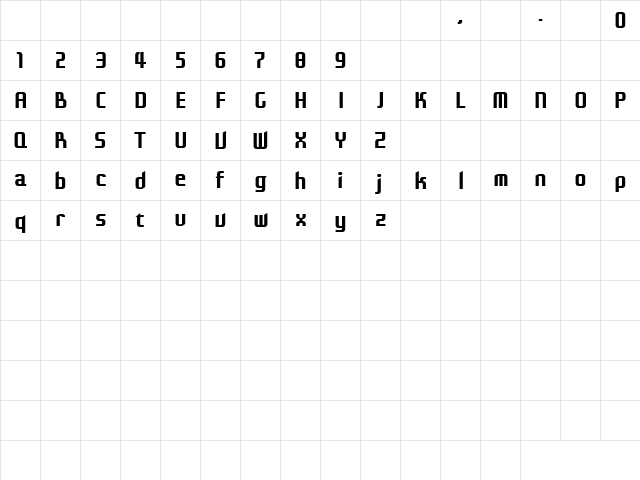
Eleme S Sans HBold Regular
Design Context for Eleme S Sans HBold Typeface
Eleme S Sans HBold is a composed and adaptable typeface that performs quietly and consistently across a wide range of design contexts. Its bold stroke weight gives it real presence on the page.
Pro Tip: Use Eleme S Sans HBold in both headline and body roles to test its range before committing to a single application.